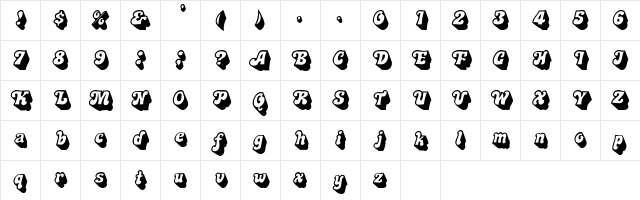
FlowerChildSSK BoldItalic
Design Context for FlowerChildSSK Typeface
FlowerChildSSK has an approachable, lighthearted character — its loose, expressive forms are well-suited to children's content, casual branding, and fun-first design. The slanted form adds forward momentum and visual energy.
Font Pairing: Pairs well with a rounded or humanist sans for body copy, maintaining the friendly tone without relying on FlowerChildSSK to carry extended reading.
Pro Tip: Use FlowerChildSSK at larger display sizes where its expressive character can land. Pair with a clean, simple sans for body copy to maintain readability.